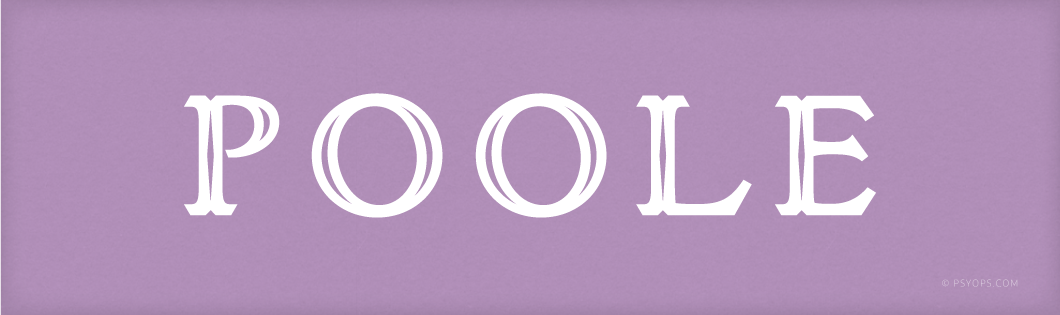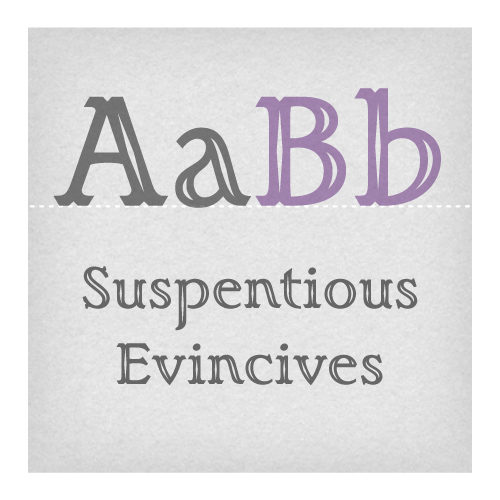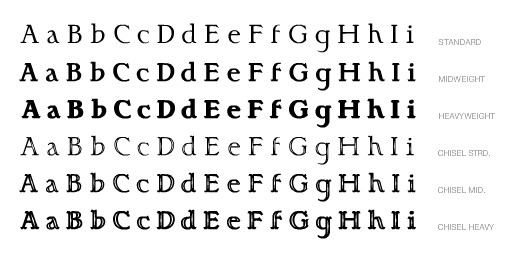
Poole Typeface
In Poole Chiselcut Standard (the lightest of the three weights in the family), the delicate inlines create a sort of crystalline elegance; while the other weights play up the Late Victorian lineage of the typeface. The Heavy font is does its best work in playbills, signage and other settings where a quirky, turn-of-the-(20th)-century strength feel is called for.
The Poole fonts include: Western and Eastern European characters, ligatures, and more.